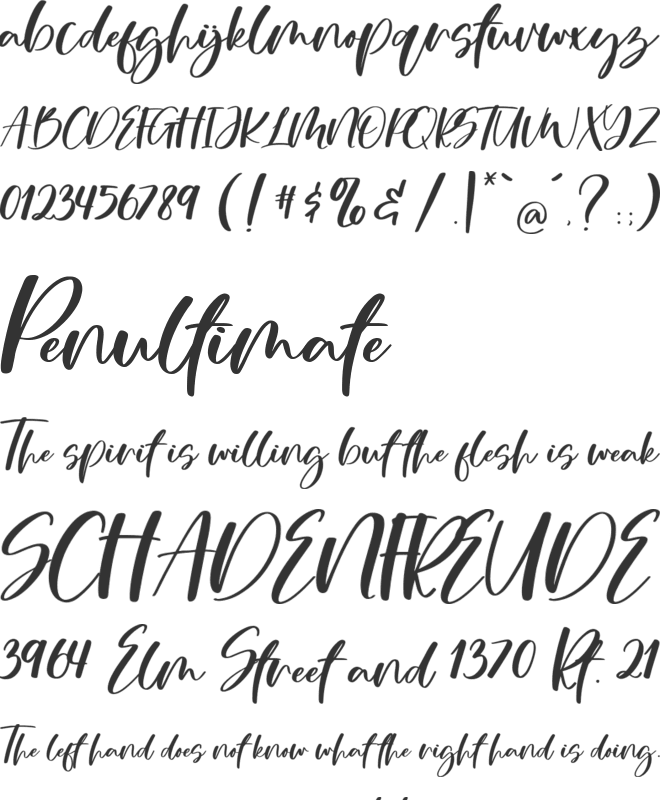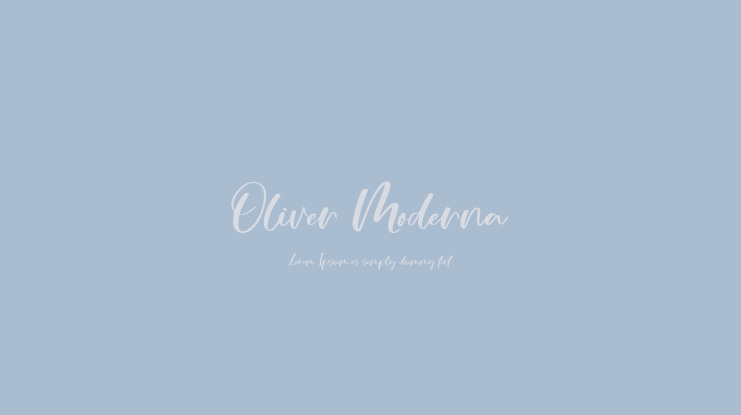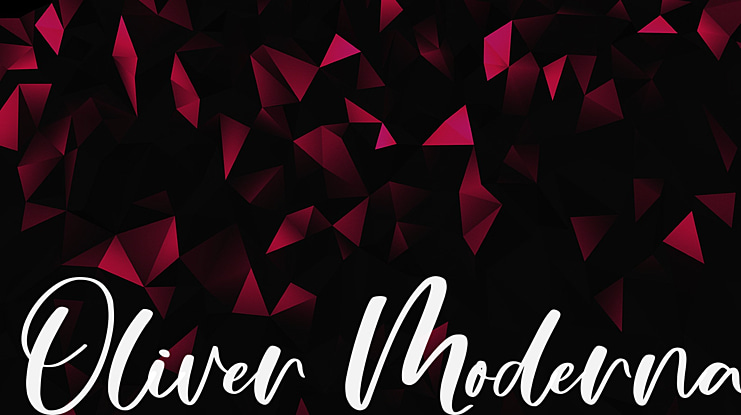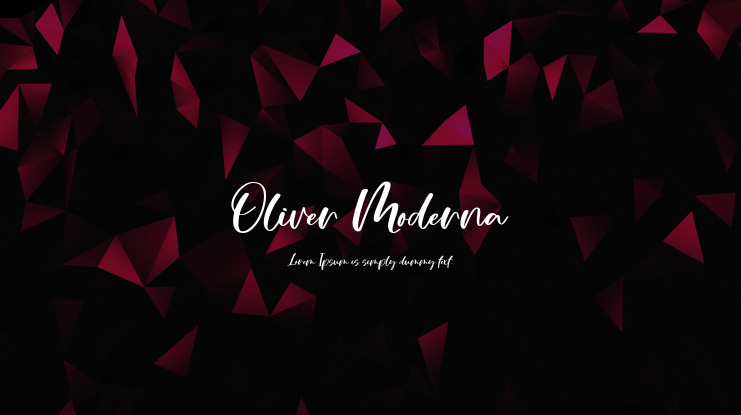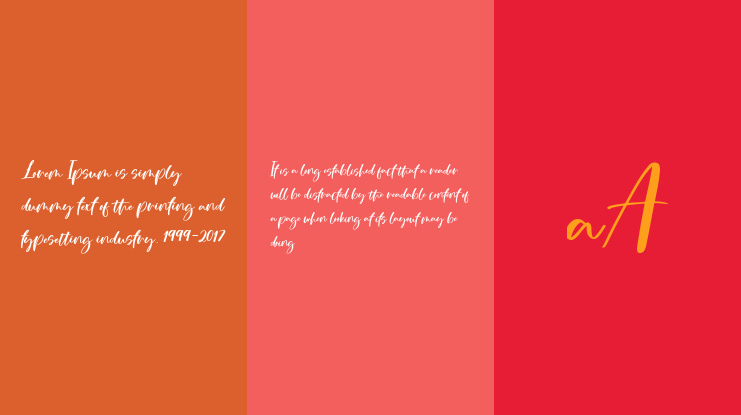
Oliver Moderna Font
Oliver Moderna is a Modern Handwritten Font
Oliver Moderna is a magical handwritten font carefully created with a touch of boldness and elegance. Whether you’re looking for fonts for Instagram or calligraphy scripts for DIY projects, this font will turn any creative idea into a true piece of art!